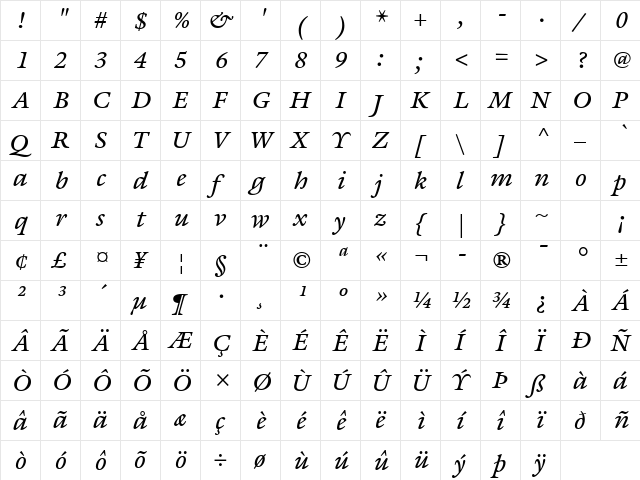
Galliard eText ITC Italic
| Foundry | International Typeface Corporation |
| Designer | Matthew Carter |
Design Context for Galliard eText ITC Typeface
Galliard eText ITC offers clean, dependable letterforms without strong stylistic allegiance, making it a practical choice for designers who need flexibility. Its italic angle brings a sense of urgency and motion to the letterforms.